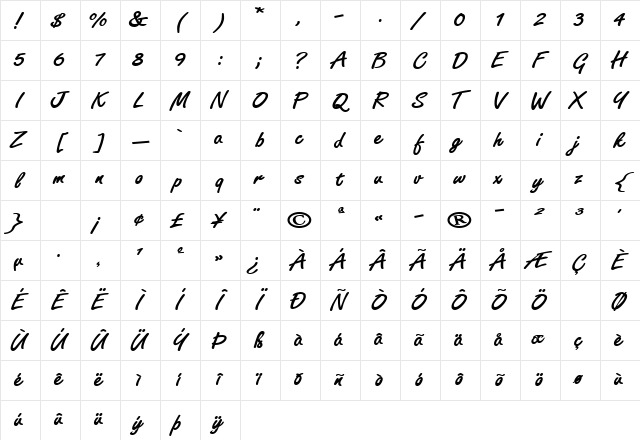
WaveScape48 Bold
Design Context for WaveScape48
WaveScape48 is a composed and adaptable typeface that performs quietly and consistently across a wide range of design contexts. Its bold stroke weight gives it real presence on the page.